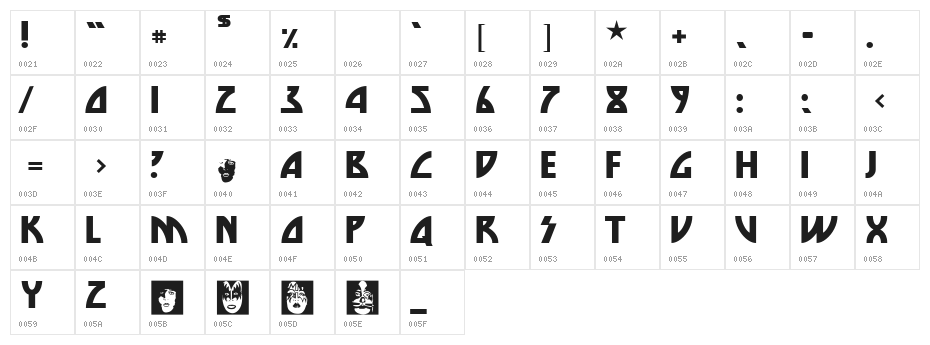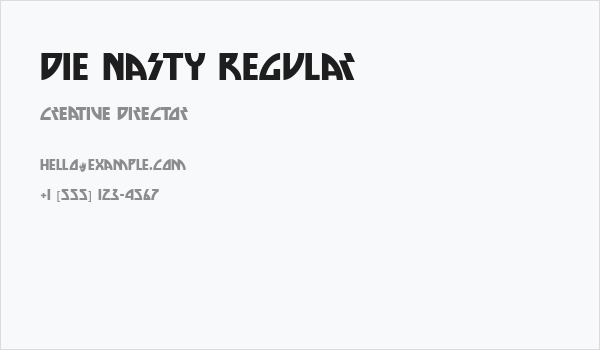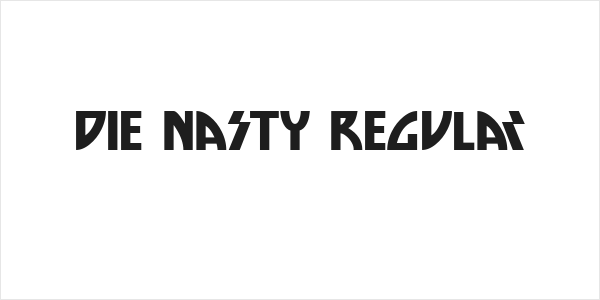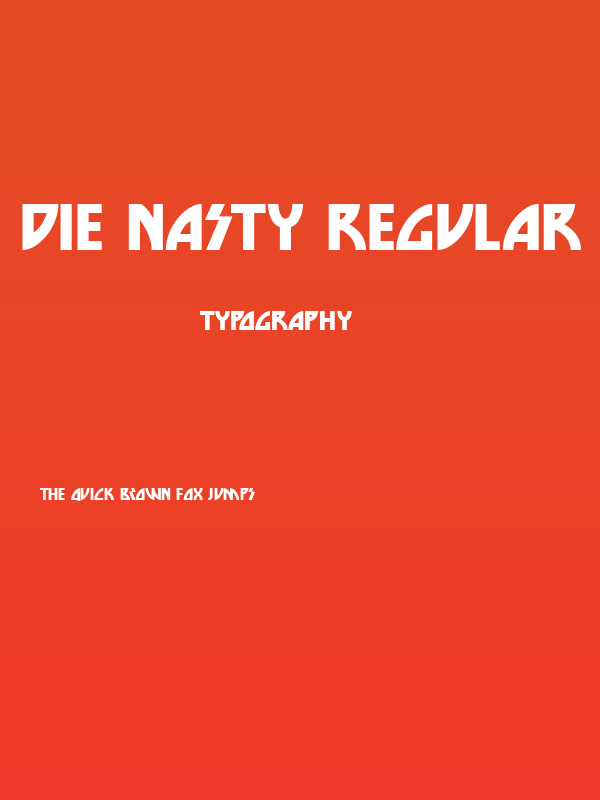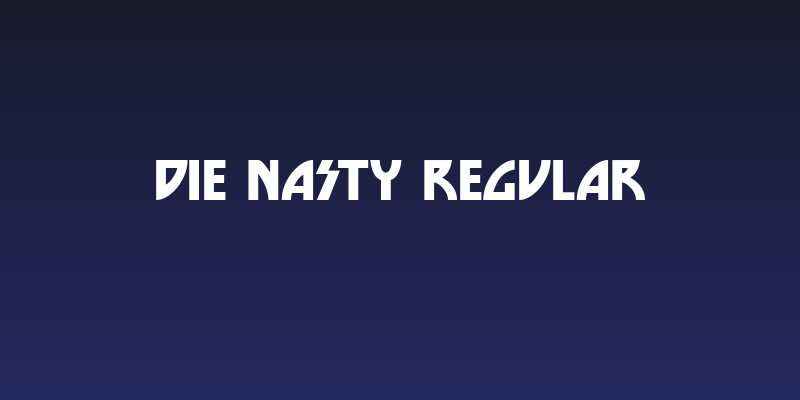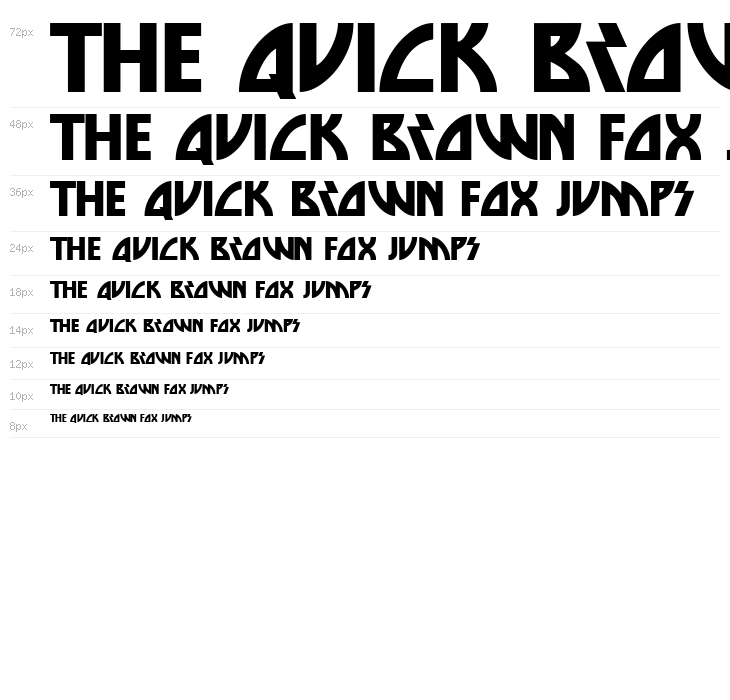
Die Nasty Regular Font
Die Nasty Regular Description
This font features a bold, geometric style with sharp angles and a futuristic aesthetic. The characters are designed with a strong emphasis on symmetry and uniformity, creating a cohesive and striking appearance. The uppercase letters are particularly distinctive, with unique shapes that give the font a dynamic and edgy feel. The numbers and special characters maintain the same boldness and geometric design, ensuring consistency across all elements. This font is ideal for projects that require a modern and impactful look, such as branding, posters, and digital media.
| Proposed Projects | Ideal for branding, posters, digital media, and any project needing a modern, impactful look. |